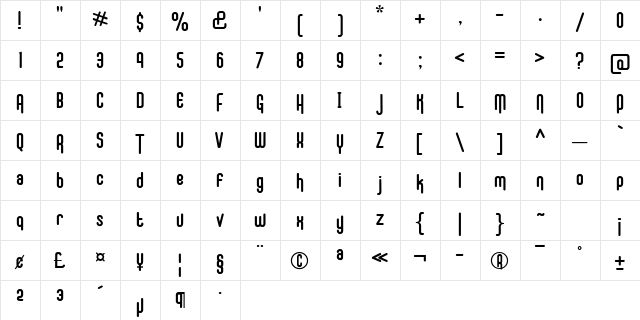
Mychellow Regular
| Designer | Arvan Fatwa |
Design Context for Mychellow Typeface
Mychellow is a composed and adaptable typeface that performs quietly and consistently across a wide range of design contexts.